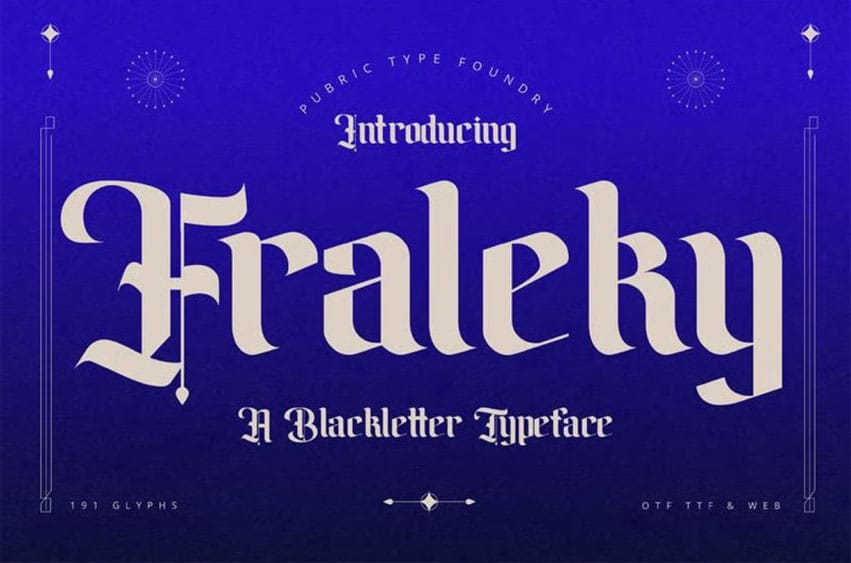
Fraleky FontĀ is a unique blackletter font with precise curves and a gothic edge. Its bold and distinctive style makes it suitable for headlines, posters, logos, and designs that want a striking, characterful look.
Ideal for branding, posters, headlines, packaging, album art, game visuals, and promotional designs. It adds personality to any creative project and helps your message stand out effortlessly.